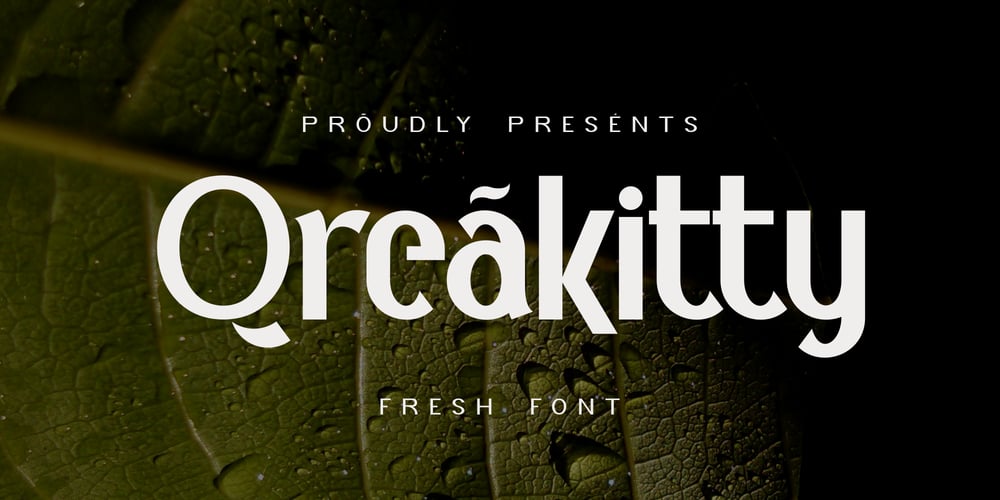
Qreakitty Font Family was designed by Iskandar Zulkarnain and published by Wontenart. Qreakitty contains 1 styles and family package options. Special fonts for you,made with love, strength, beauty and all the positive aspects to pour into written form.